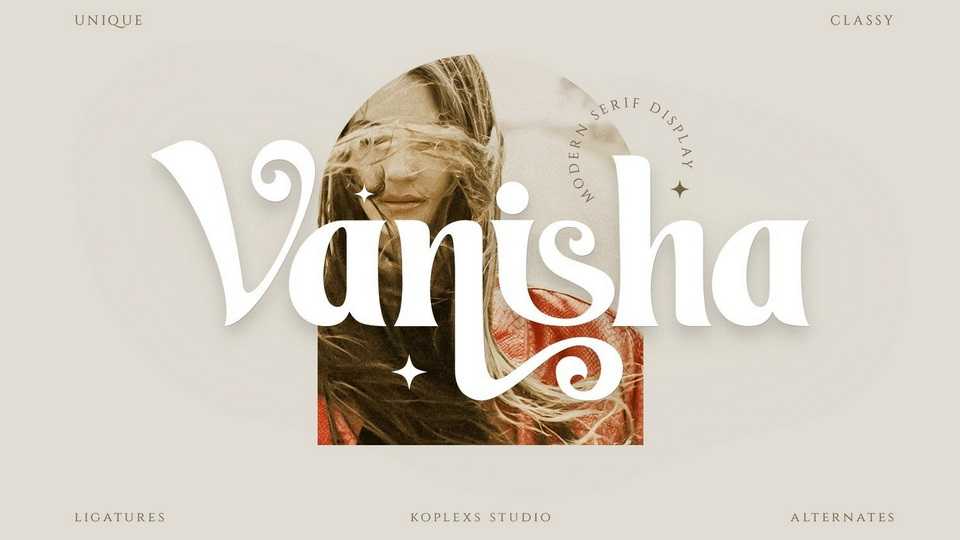
Vanisha Font › Fontesk
Download Vanisha font, a modern serif display typeface with beautiful ligatures, tons of special alternative glyphs and ornaments. Vanisha is a very versatile font that works great in large and small sizes.